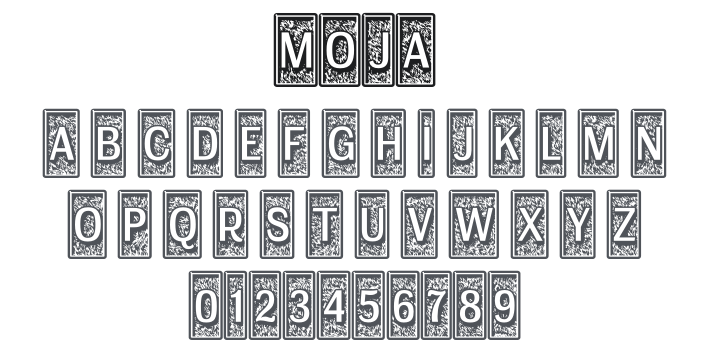
Moja Font Family
About Moja
Moja is a decorative display typeface where each letter sits inside its own ornate rounded letterbox adorned with intricate fur-like patterns — evoking the illuminated initial capitals found in medieval manuscripts, but with a warm, playful twist. The layerable files allow rich multicolour combinations. Perfect for editorial drop caps, fantasy game titles, historical-themed designs, children's storybooks, and ornate decorative headlines.